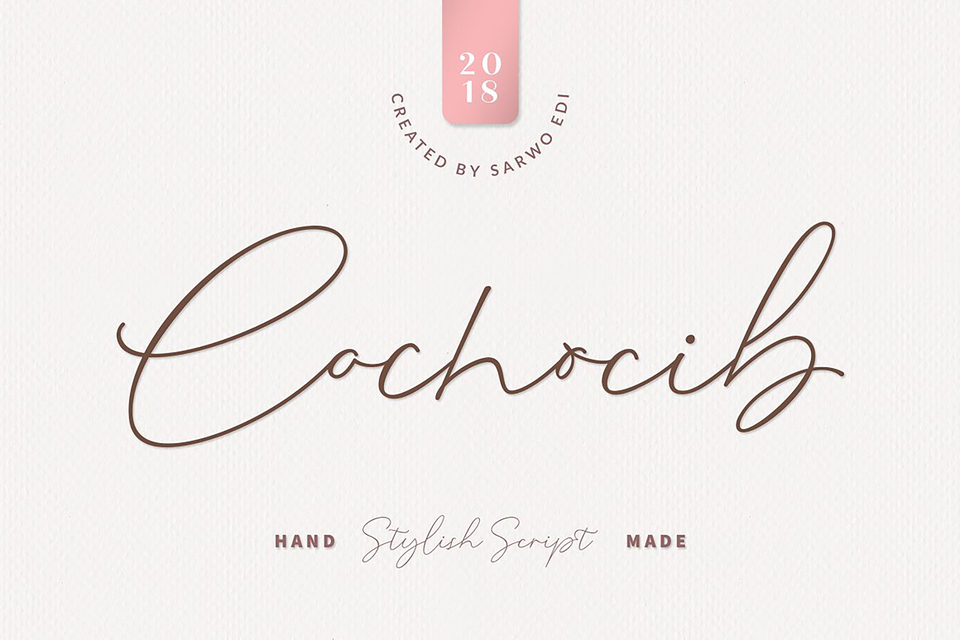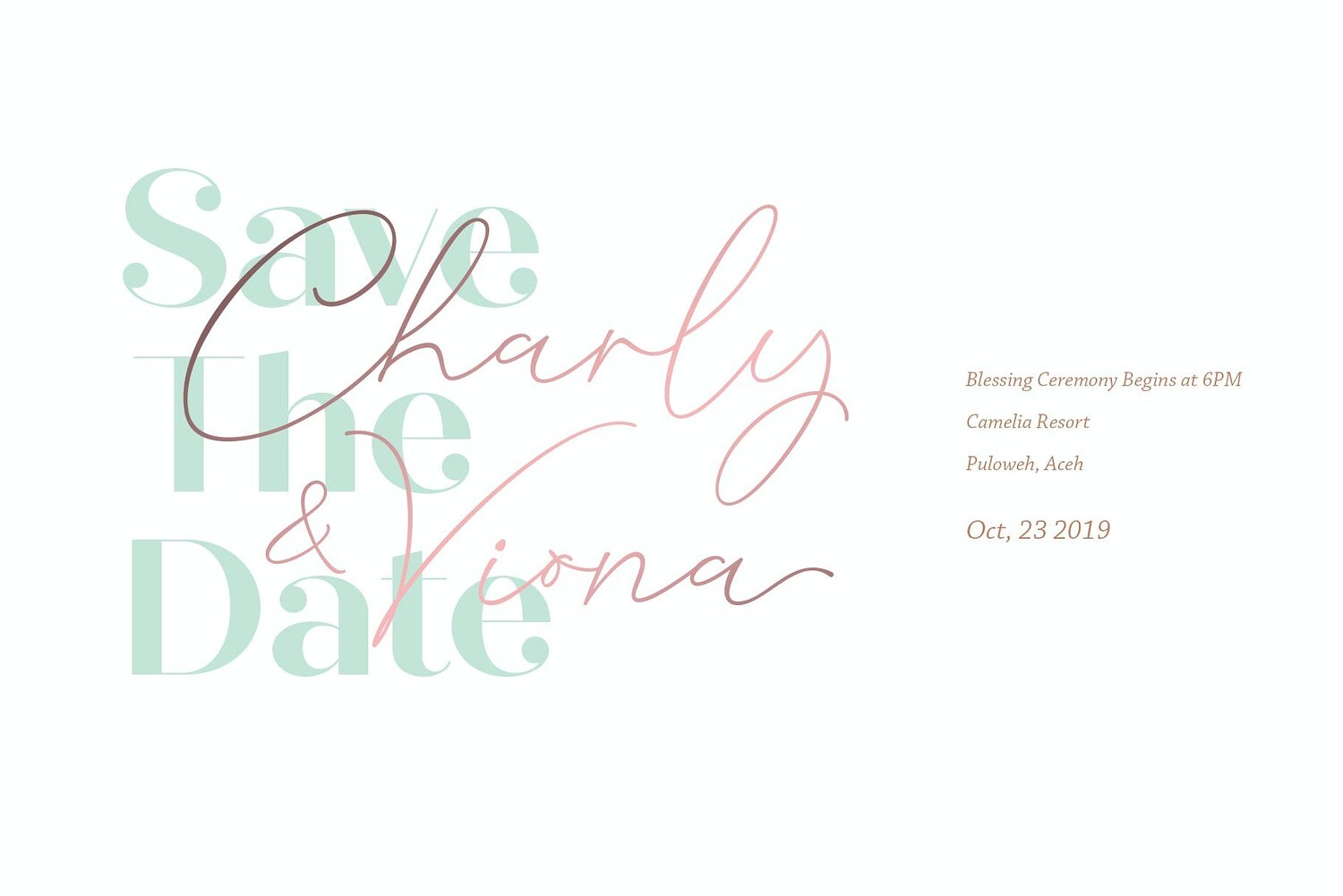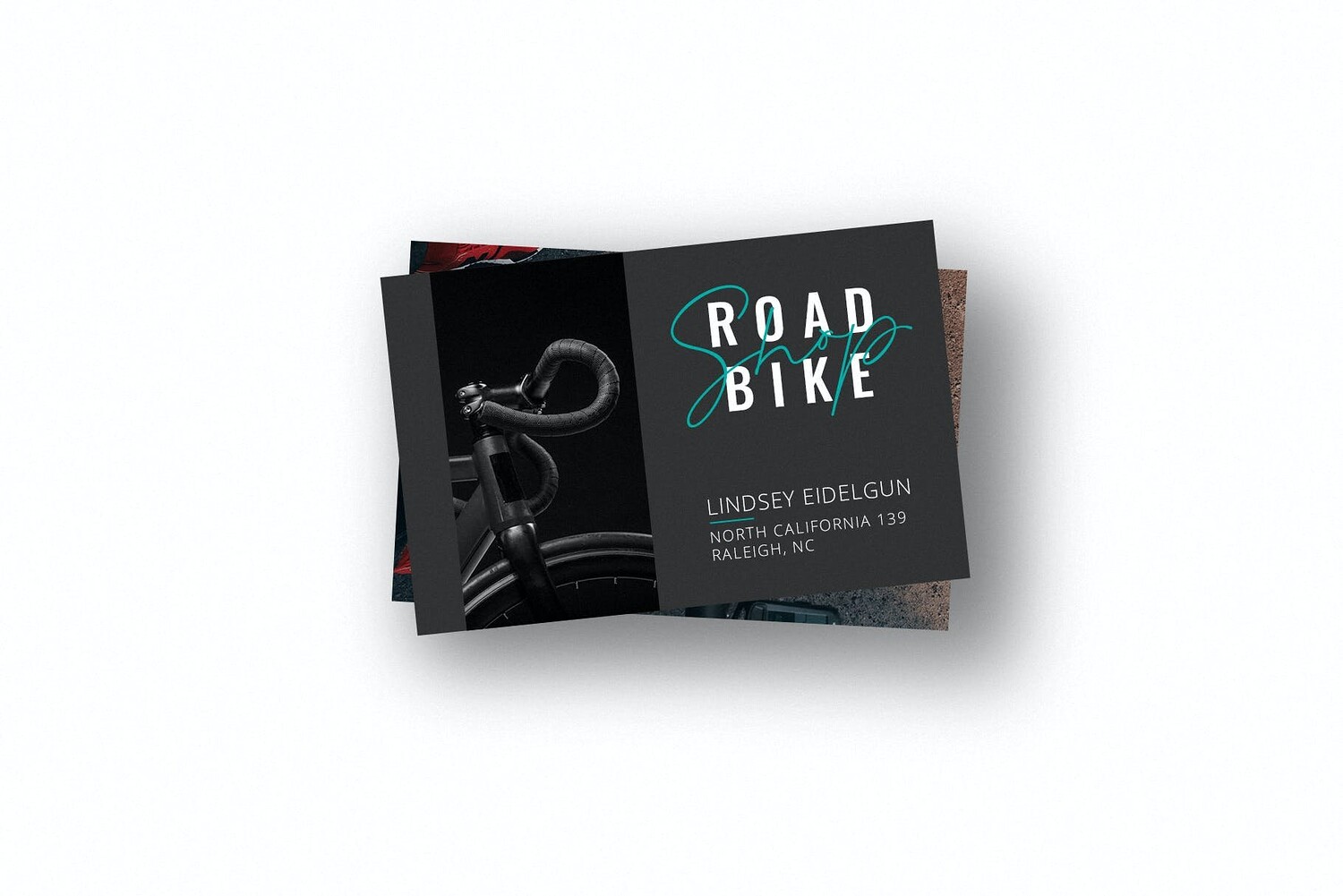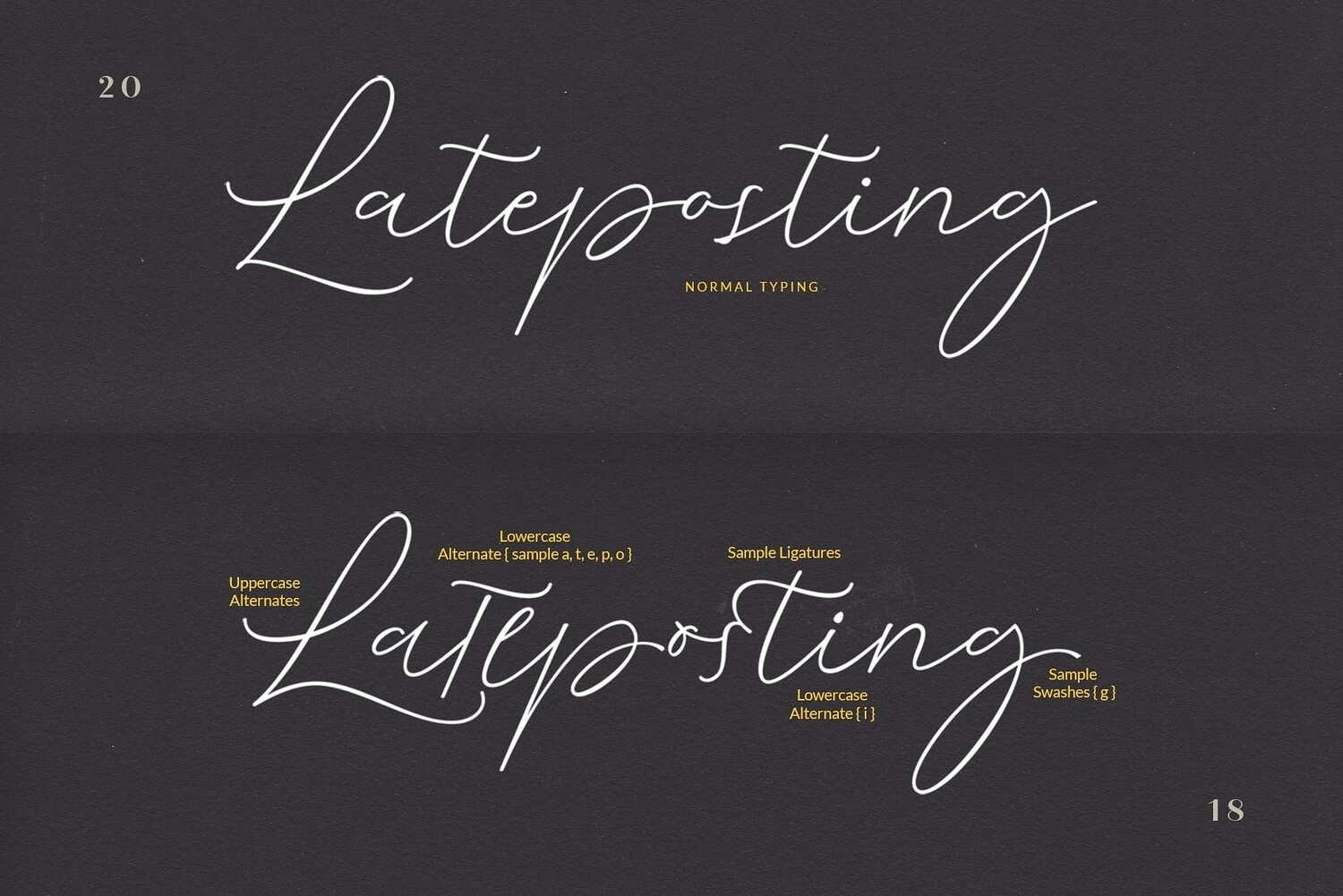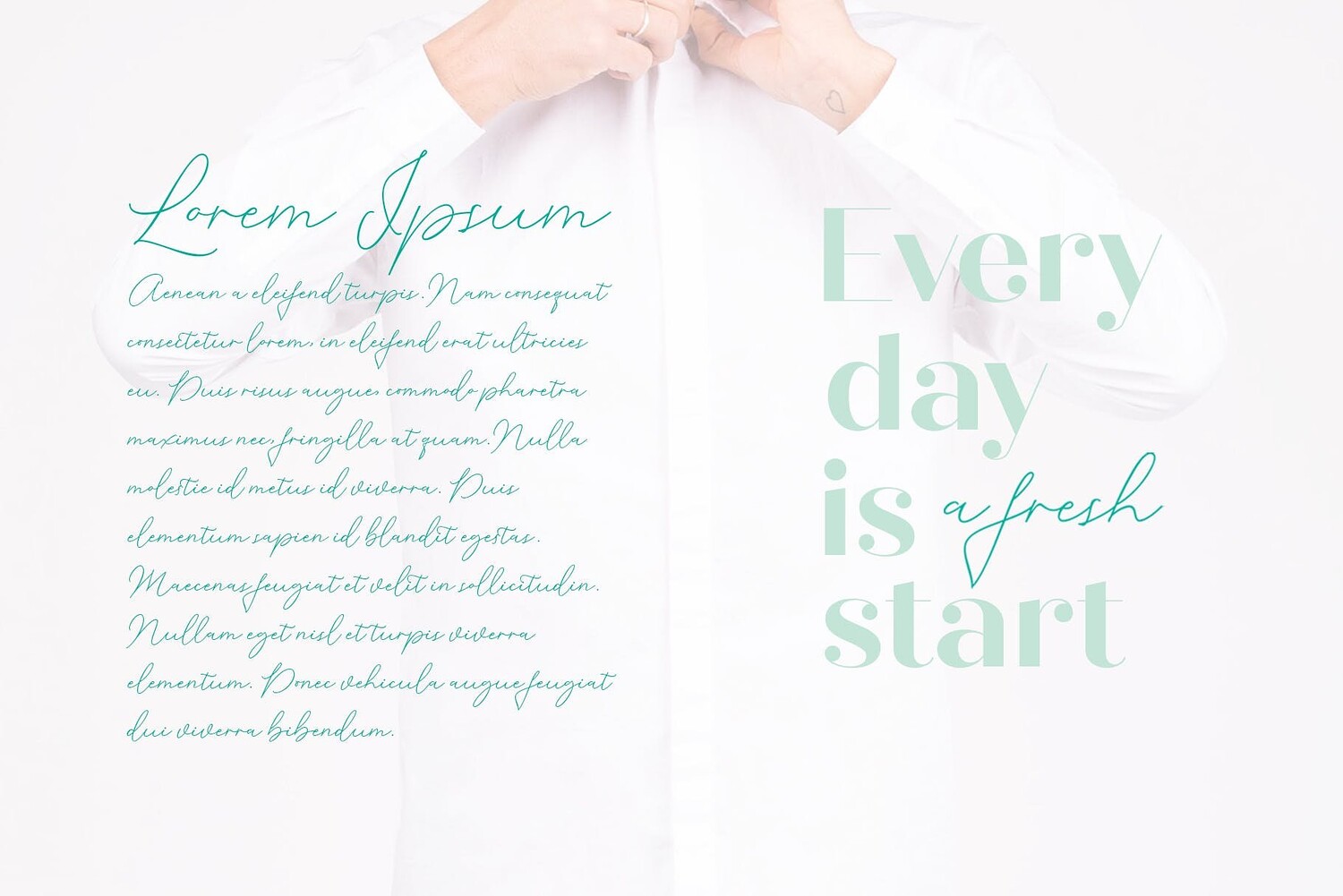
by Saffatin Co
Cochocib Script Fonts
Introducing my Cochocib Script, with a soft style and has an elegant nuances, classy and natural. Perfect to get a more charismatic impression or unique touch to your projects and branding, greeting cards, wedding, banner, name card, lettering, fonts pairing, etc. Come with swash letter, ligatures, uppercase and lowercase alternates that you can combine every letter perfectly. Also easy to use with any program with opentype feature support. Including: - Cochocib Script Latin Pro OTF - Cochocib Script Latin Pro TTF This font support accent letters of Central Europa, Western (À Â Æ È Ë ã ä æ è...)